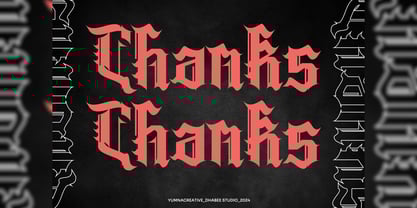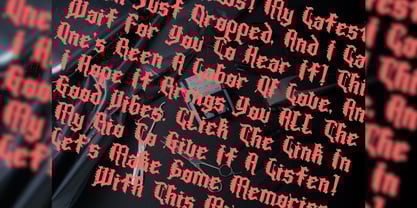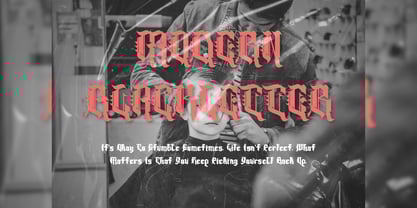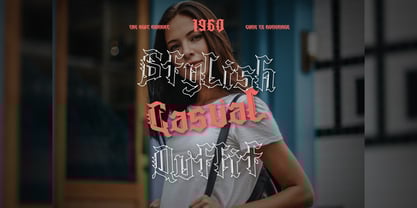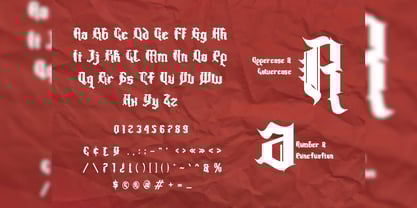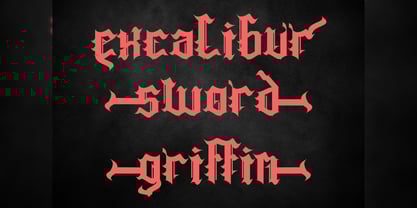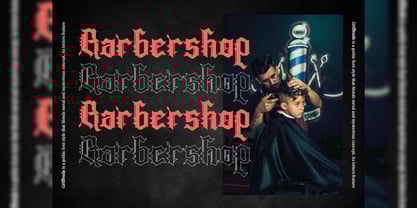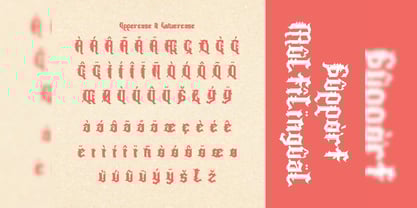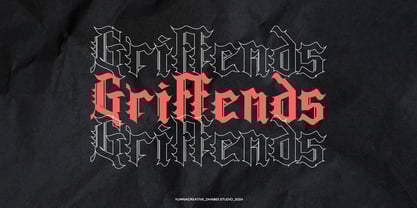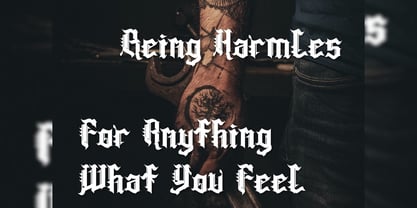
Griffends
by Yumnacreative
The Griffends Font Family was designed by Dhimas Habibie and published by Yumnacreative. Griffends contains 1 styles.
Introducing Griffends - Blackletter Display Font
This Font is a delicate, elegant and flowing handwritten font. It has beautiful and well as a unique blend of ligatures a letter, so that the authors compose it with a and little swirly embedding, so that a modern font is formed and ready to make a statement by adding elegant and unique flair to your next design project. Add it to your most creative ideas and notice how it makes them come alive!
FEATURES
- Uppercase and Lowercase letters
- Alternate and Ligature
- Numbering and Punctuations
- Multilingual Supports
Designers: Dhimas Habibie
Publisher: Yumnacreative
Foundry: Yumnacreative
Design Owner: Yumnacreative